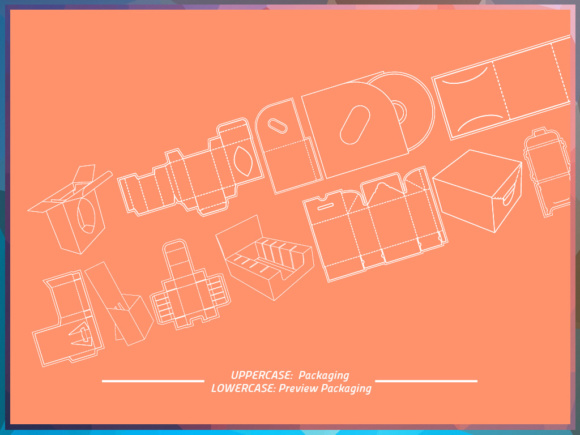
Welcome to the world of meticulous craftsmanship, where precision meets creativity—introducing FTF Inspillo Packagee Font, a revolutionary dingbats font family, meticulously engineered to redefine the boundaries of modern typography. Step into a realm of exceptional clarity, where every intricate stroke and graceful curve is a testament to the boundless imagination of its creator, Fizzetica.ID.
FTF Inspillo Packagee Font is not just a collection of symbols; it's an arsenal of visual storytellers, each one imbued with a unique narrative, ready to unleash your creative prowess. Whether you're a seasoned designer or a budding artist, this extraordinary font family will ignite your imagination, empowering you to weave captivating tales through the art of digital communication.
With FTF Inspillo Packagee Font, you hold the key to unlocking a treasure chest of creative possibilities. Its meticulously crafted package graphics are an invitation to explore uncharted territories of design, where innovation thrives and originality knows no bounds. Let your imagination soar as you effortlessly create stunning logos, eye-catching social media posts, and captivating website designs that leave an indelible mark on your audience.
Elevate your projects with FTF Inspillo Packagee Font, a font family that transcends the realm of ordinary typography, inviting you to dive into a world where imagination takes center stage. Its limitless potential will inspire you to push the boundaries of creativity, crafting digital masterpieces that captivate and mesmerize.
This isn't just a font; it's a gateway to a world where your ideas take tangible form, where your designs become a reflection of your unique perspective. With FTF Inspillo Packagee Font, you'll discover a symphony of visual storytelling, where each character dances across the screen, conveying emotions, evoking memories, and igniting imaginations.
Join the ranks of creative visionaries who have embraced FTF Inspillo Packagee Font, experiencing a surge of inspiration as they witness their ideas transformed into digital masterpieces. Elevate your work to new heights, captivating your audience with designs that tell stories, ignite emotions, and leave an enduring legacy.